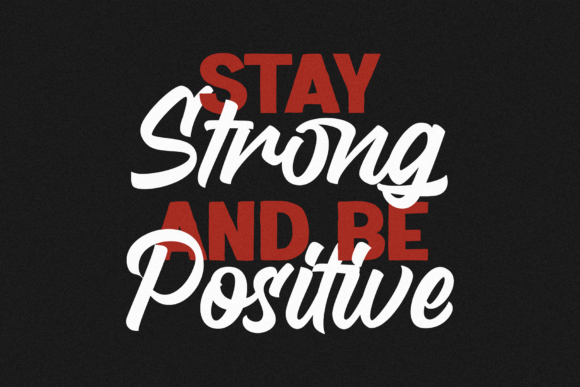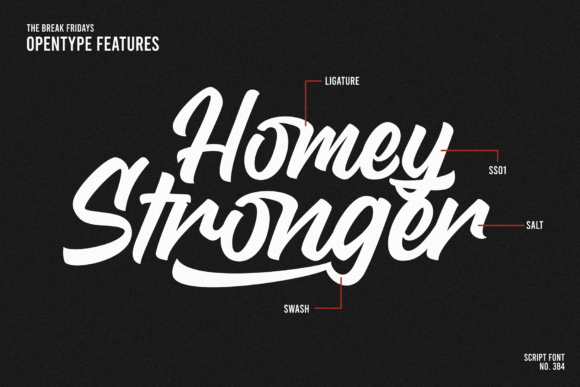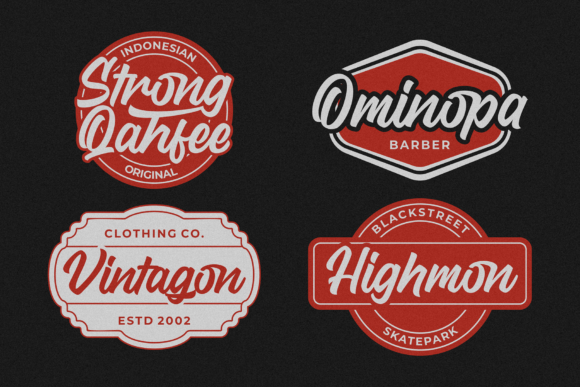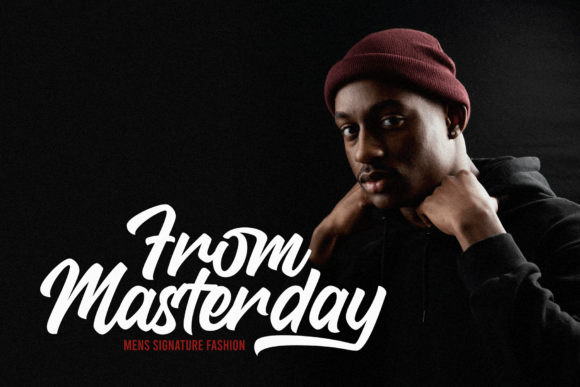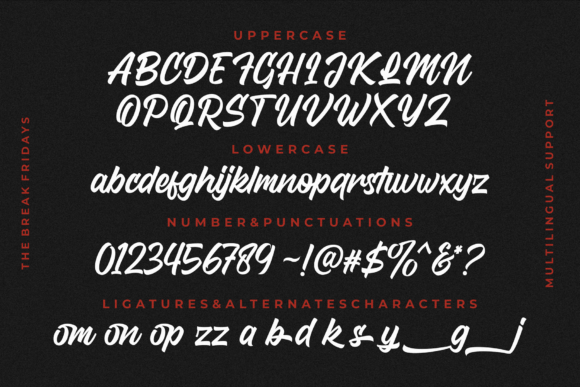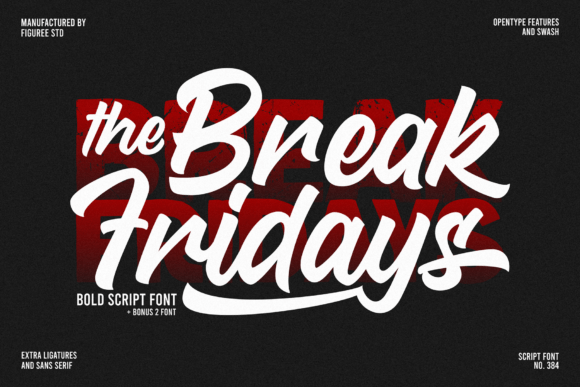
Introducing Break Fridays Font: Elevate Your Designs with a Fresh, Energetic Vibe
Are you tired of using the same old fonts in your designs? Do you want to add a bold and modern touch to your projects? Look no further than Break Fridays Font, the clean bold script font that’s taking the design world by storm. With its striking, clean lines and extra opentype features, Break Fridays is perfect for designers and crafters who want to make a statement.
The Perfect Blend of Style and Versatility
Break Fridays Font is more than just a font – it’s a design experience. Its clean and bold script style is perfect for projects that demand a modern aesthetic, from branding and advertising to packaging and digital design. The font’s fresh and energetic vibe is sure to capture the attention of your audience and leave a lasting impression.
Key Features of Break Fridays Font
- Clean and Bold Script Style: Break Fridays Font features a striking, clean script style that’s perfect for making a statement.
- Extra Opentype Features: With a range of extra opentype features, you can add an extra layer of creativity to your designs.
- Modern Aesthetic: The font’s modern and bold style is perfect for projects that demand a fresh and energetic vibe.
- Versatile: Break Fridays Font is perfect for a range of design projects, from branding and advertising to packaging and digital design.
Take Your Designs to the Next Level with Roads Block Font
But that’s not all – with Break Fridays Font, you also get access to the Roads Block Font, a versatile and creative font that’s perfect for adding an extra layer of interest to your designs. The Roads Block Font features a unique block-style design that’s perfect for creating eye-catching graphics, logos, and more.
Why Choose Break Fridays Font?
So why choose Break Fridays Font over other fonts on the market? Here are just a few reasons why designers and crafters are falling in love with this amazing font:
- Unique and Creative: Break Fridays Font is a truly unique and creative font that’s sure to make your designs stand out.
- Easily Readable: Despite its bold and modern style, Break Fridays Font is still easily readable, making it perfect for use in a range of design projects.
- High-Quality Design: The font is designed to the highest standards, ensuring that it looks great in any design.
How to Use Break Fridays Font in Your Designs
So how can you use Break Fridays Font in your designs? Here are a few ideas to get you started:
- Branding and Advertising: Use Break Fridays Font to create eye-catching logos, ads, and marketing materials that demand attention.
- Packaging Design: Add a bold and modern touch to your packaging designs with Break Fridays Font.
- Digital Design: Use Break Fridays Font to create stunning digital designs, from social media graphics to website headers.
- Crafting and Scrapbooking: Break Fridays Font is also perfect for crafters and scrapbookers who want to add a bold and modern touch to their projects.
| Font Name | Break Fridays Font |
| Author | figuree studio |
In conclusion, Break Fridays Font is a game-changing font that’s perfect for designers and crafters who want to add a bold and modern touch to their designs. With its striking, clean lines and extra opentype features, Break Fridays Font is sure to make your designs stand out. And with the added bonus of the Roads Block Font, you’ll have even more creative versatility at your fingertips. So why wait? Download Break Fridays Font today and take your designs to the next level!